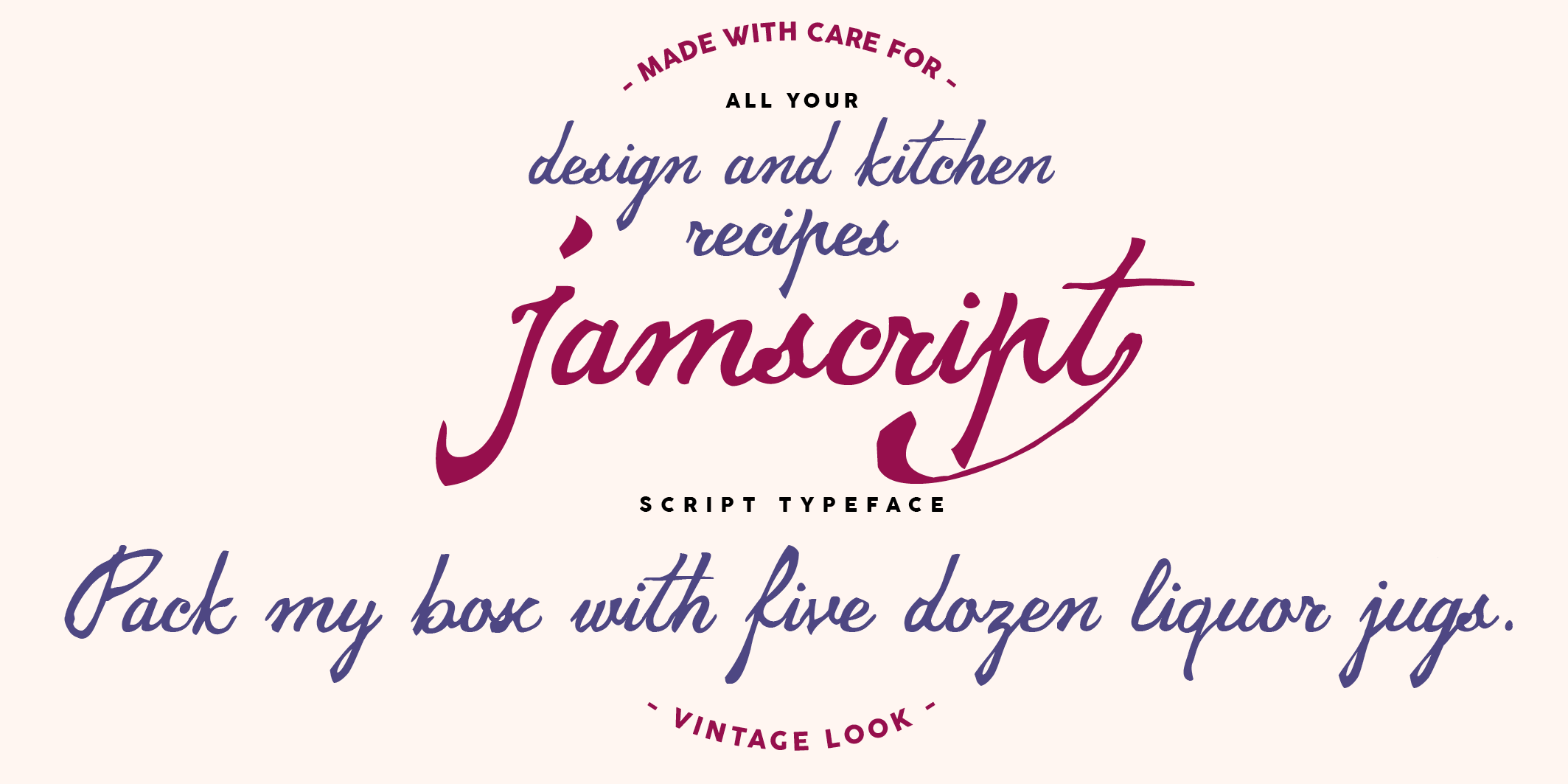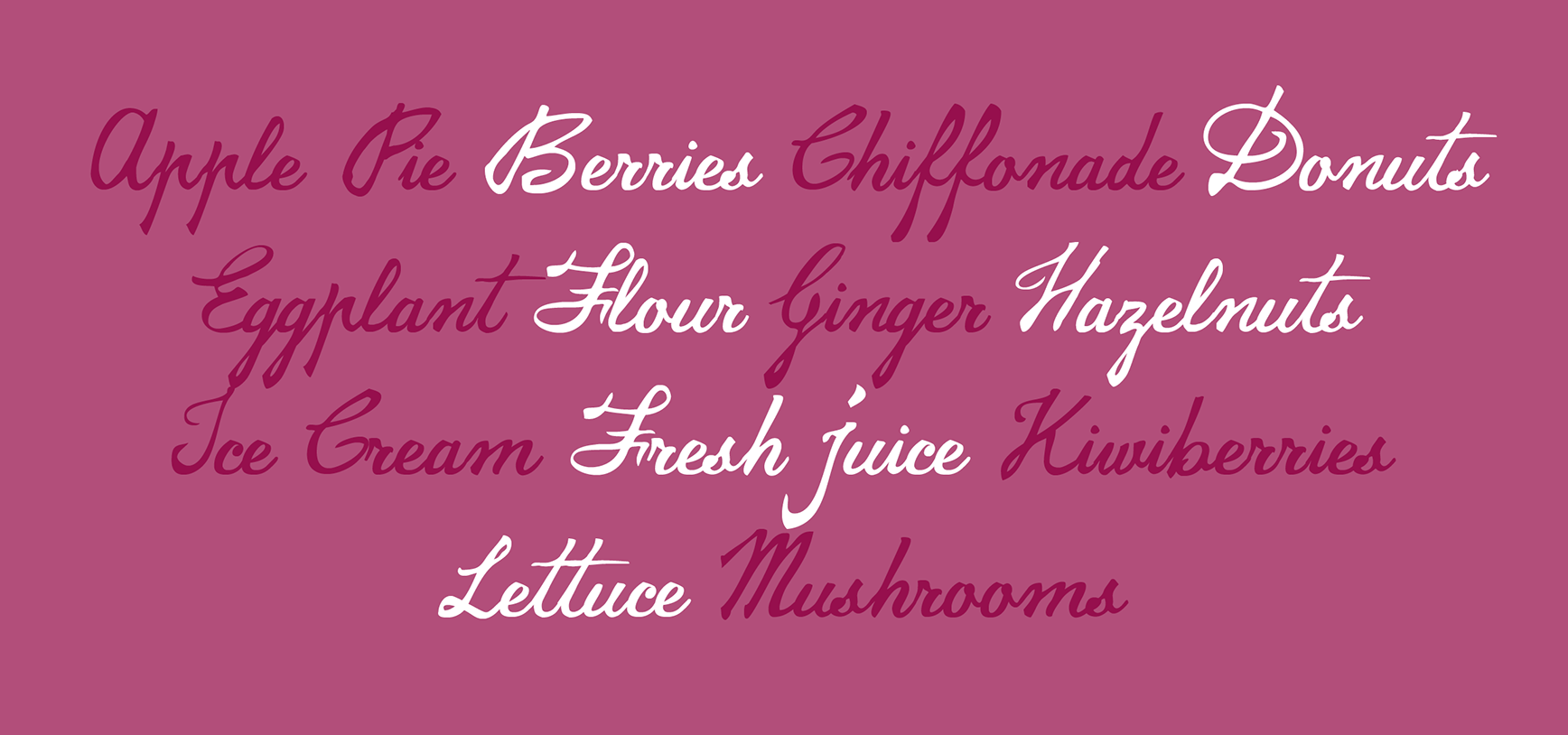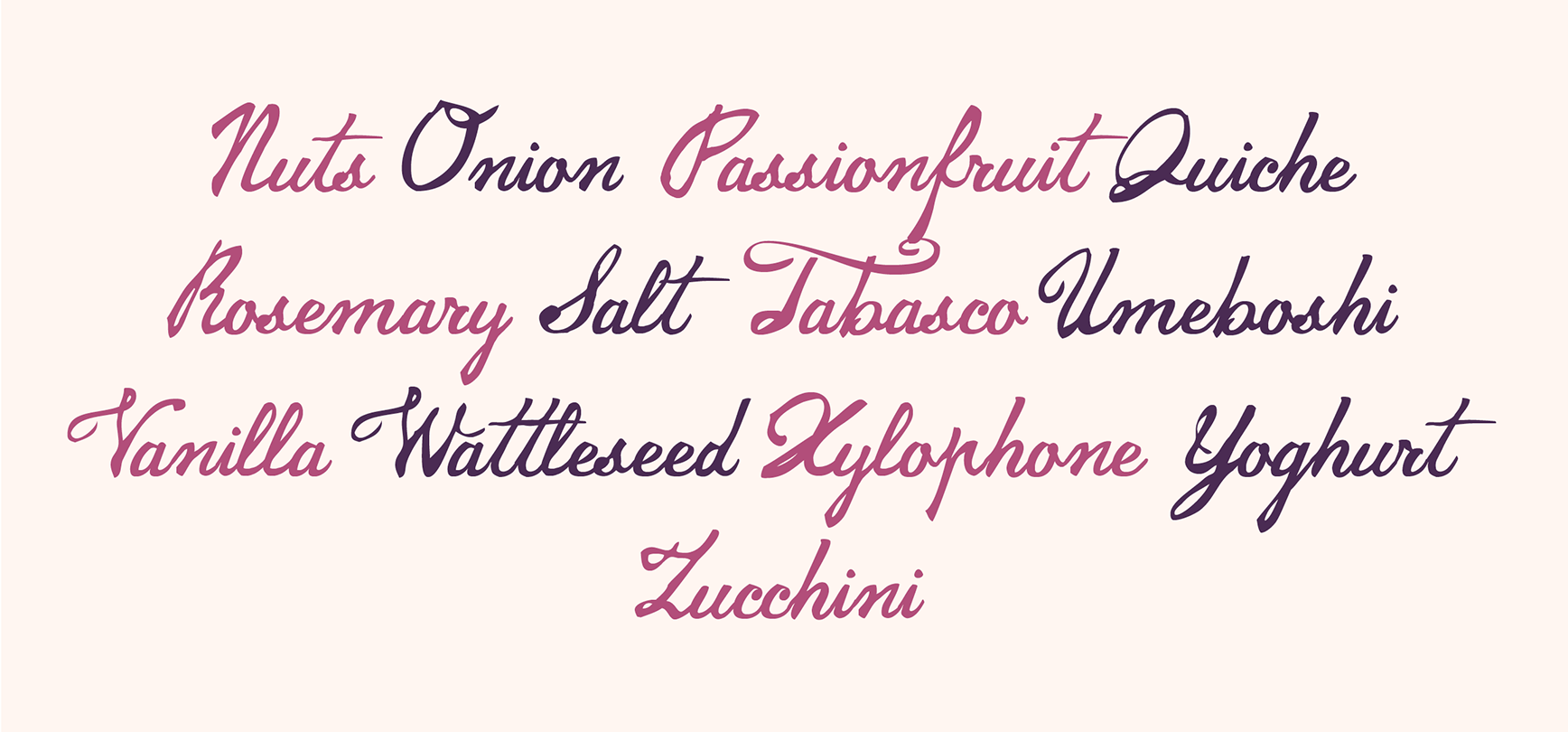
Designed by Debora Manetti released in 2015
Jamscript is a script typeface designed by Debora Manetti. It covers over 40 languages that use the Latin alphabet, with full range of accents and diacritics, and features a swash character in the underscore.
Features
• fl fi
Standard Ligatures
• 1a 3th
Ordinals